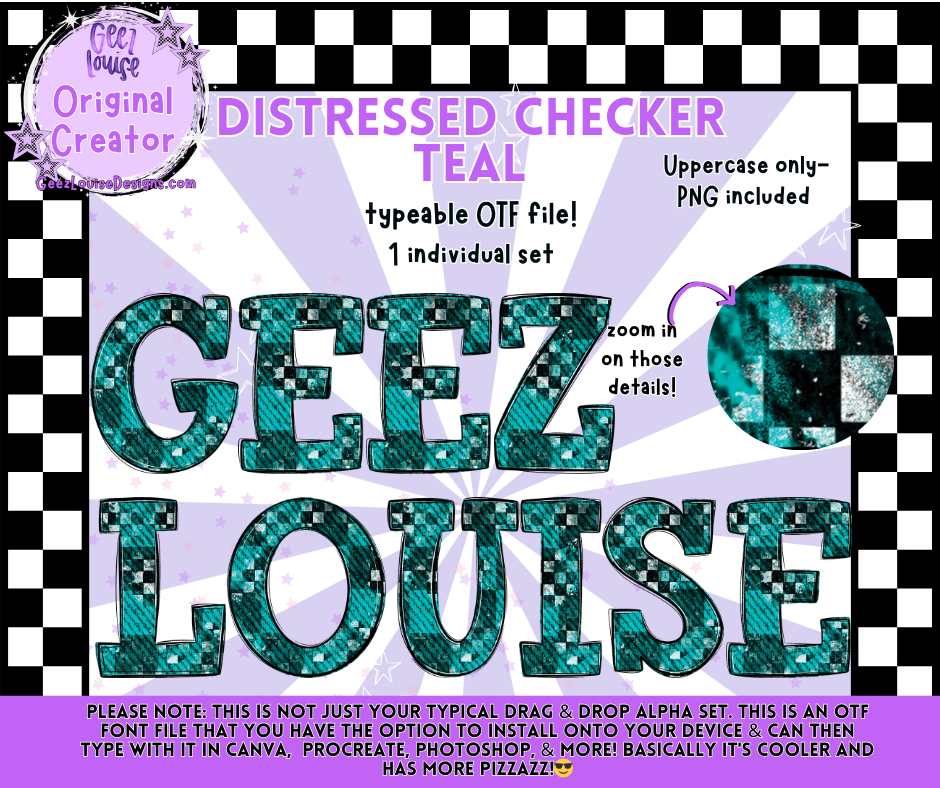
DISTRESSED CHECKER TEAL — Typeable OTF Alpha Font + PNGs
Cool, edgy, and effortlessly trendy — Distressed Checker Teal is the perfect balance of grunge texture and boutique‑friendly color. This typeable OTF font adds instant personality to apparel, stickers, and digital products with its worn checkerboard pattern and bold teal tones.
• Uppercase A–Z
• Distressed teal checker textures
• Clean, crisp print‑ready detailing